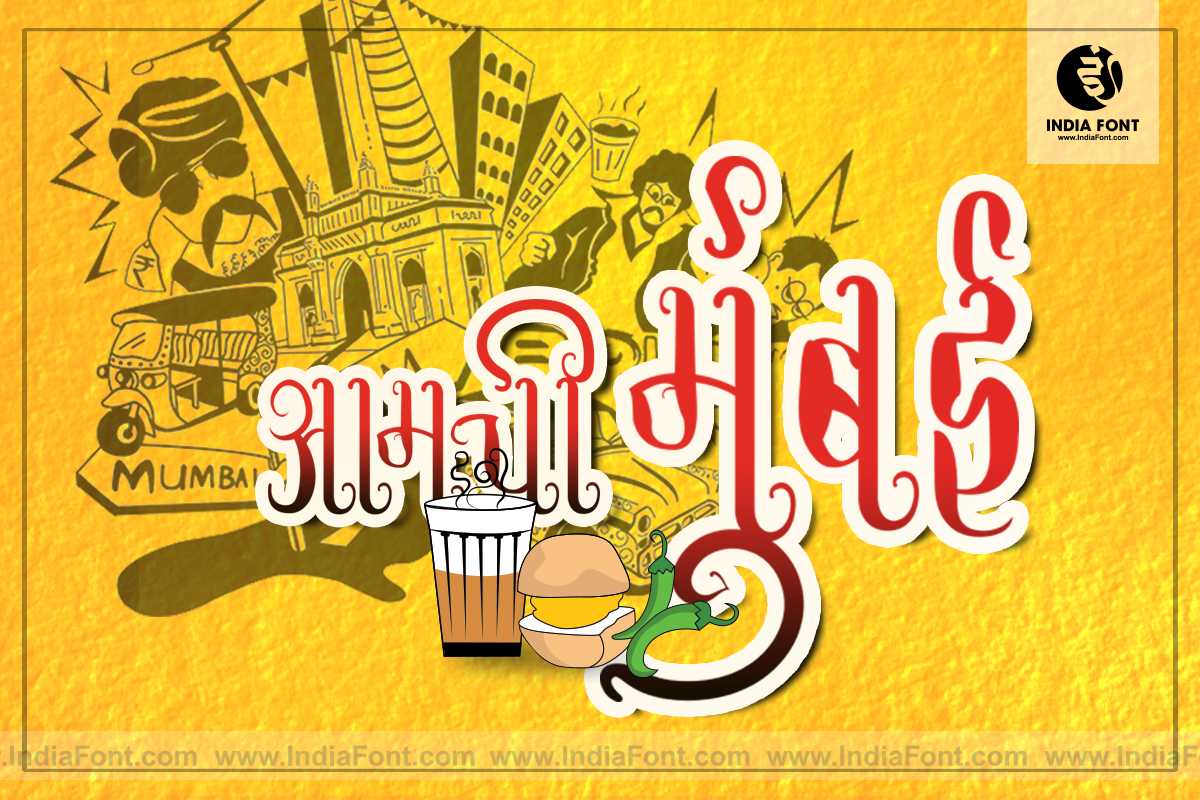
AMS Mantra
Discover the spiritual essence of AMS Mantra, a decorative font that embodies the sacred beauty of traditional typography. Perfect for designers seeking meaningful Hindi fonts, decorative fonts with cultural depth, or fonts that bring spiritual elegance to your creative projects.
About AMS Mantra Font
Discover the spiritual essence of AMS Mantra, a decorative font that embodies the sacred beauty of traditional typography. Perfect for designers seeking meaningful Hindi fonts, decorative fonts with cultural depth, or fonts that bring spiritual elegance to your creative projects. This decorative font combines elegance with functionality, making it perfect for various design applications.
AMS Mantra is a professionally crafted decorative typeface that brings clarity and style to your projects. Designed with attention to detail, it supports hindi and marathi characters flawlessly.
Whether you're working on headers-titles, posters, books-publications, or other creative projects, AMS Mantra delivers consistent performance across both digital and print media. This carefully designed typeface ensures readability and visual appeal in all your design work.
About AMS Mantra Typography Style
AMS Mantra is a professionally crafted decorative font that exemplifies modern Hindi typography design. This free font is perfect for designers seeking impactful poster and display applications.
Available in 1 weight and supporting hindi, marathi scripts, AMS Mantra offers exceptional versatility for both digital and print media. Whether you're working on headers-titles, posters, books-publications, this carefully designed typeface ensures consistent quality and professional results across all your typography projects.